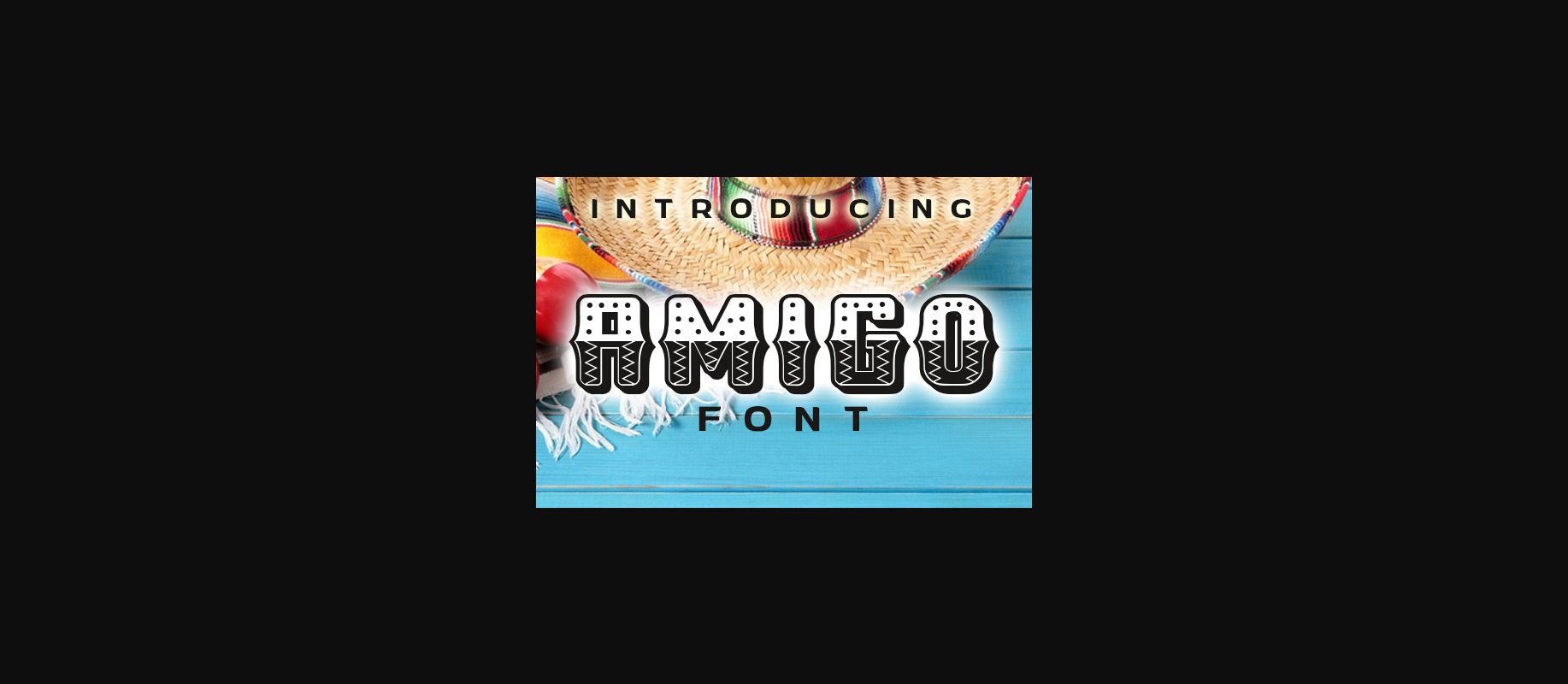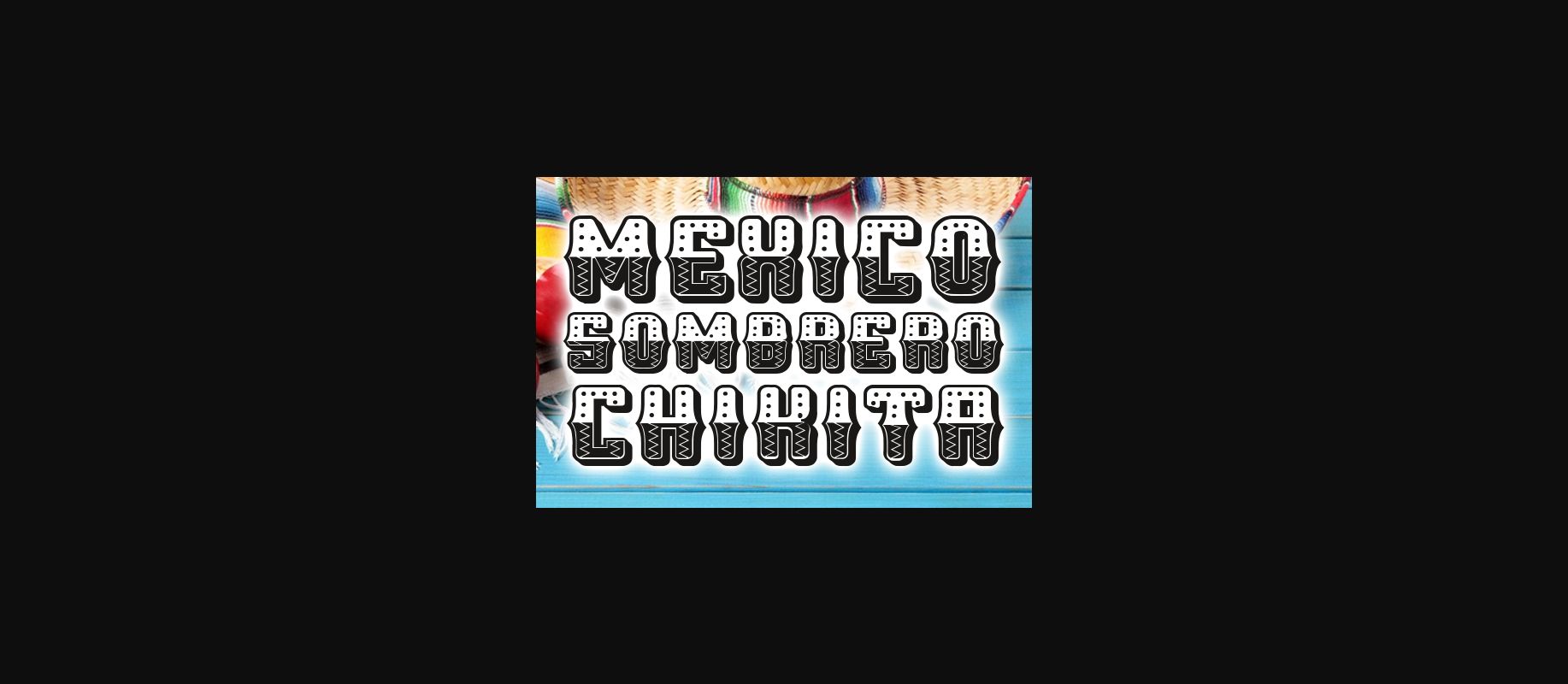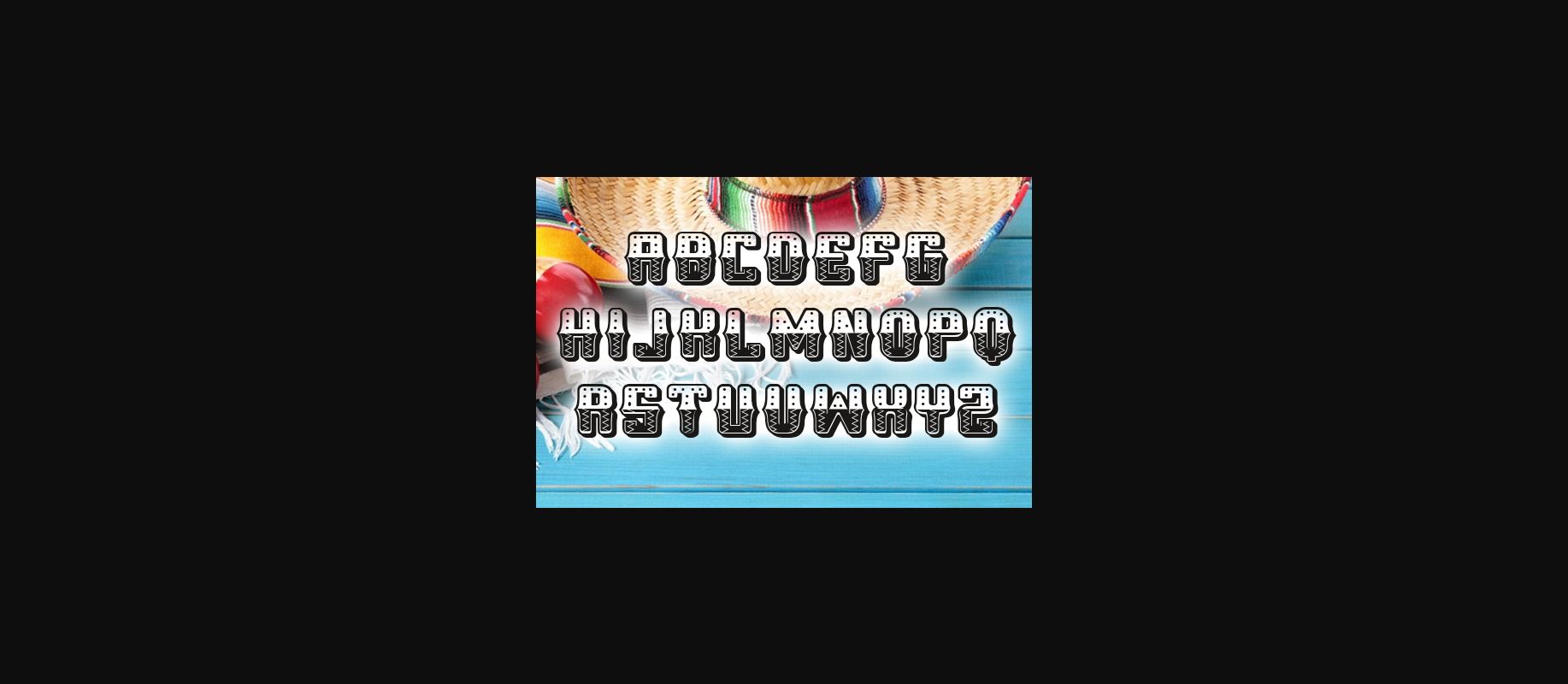
About Amigo Font
Amigo is a cute and casual decorative font with an incredibly friendly feel. Whether you’re looking for fonts for Instagram or calligraphy scripts for DIY projects, this font will turn any creative idea into a true piece of art!